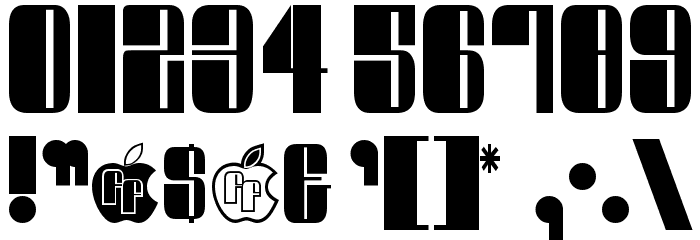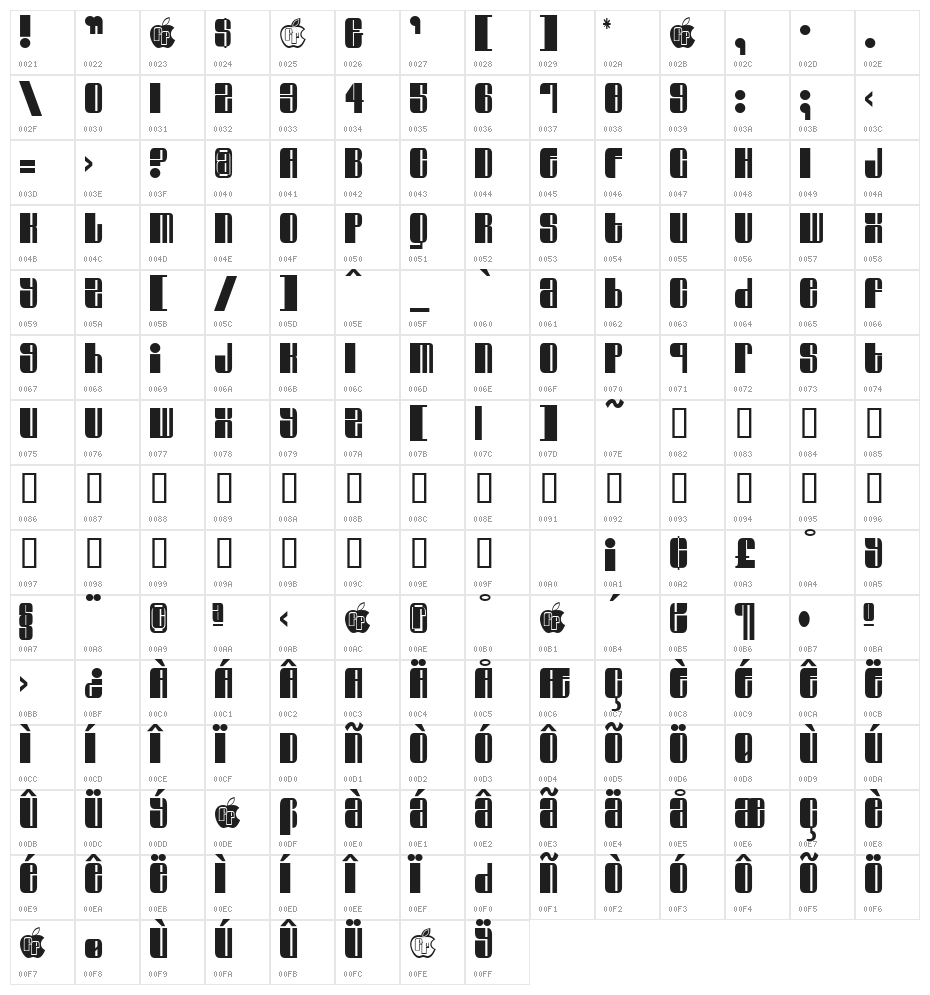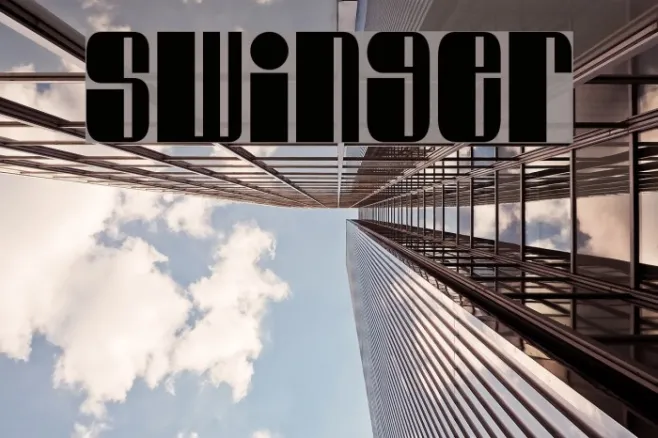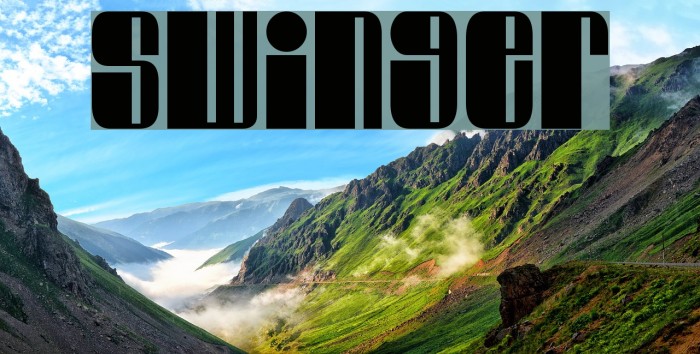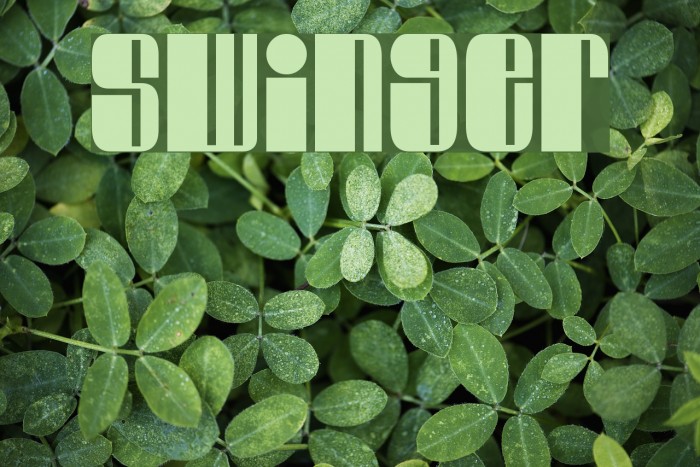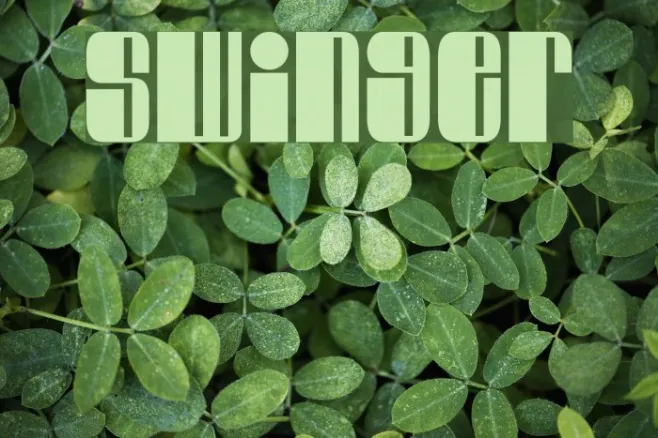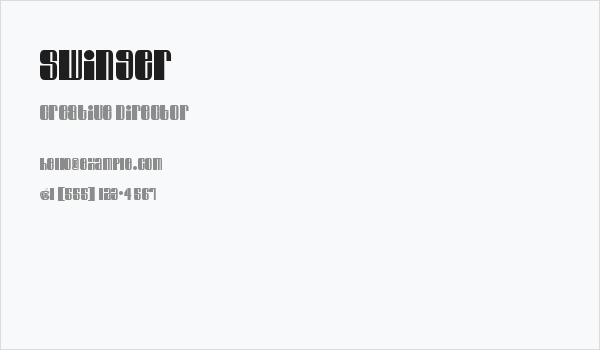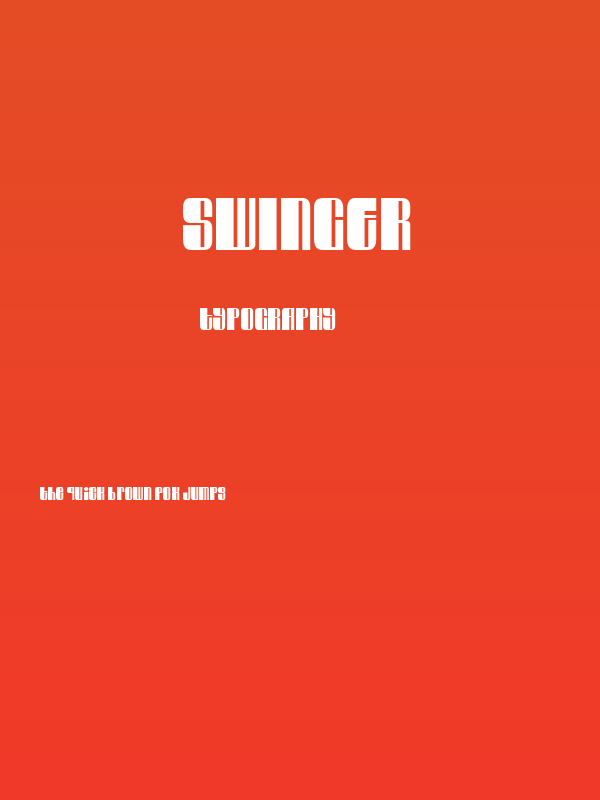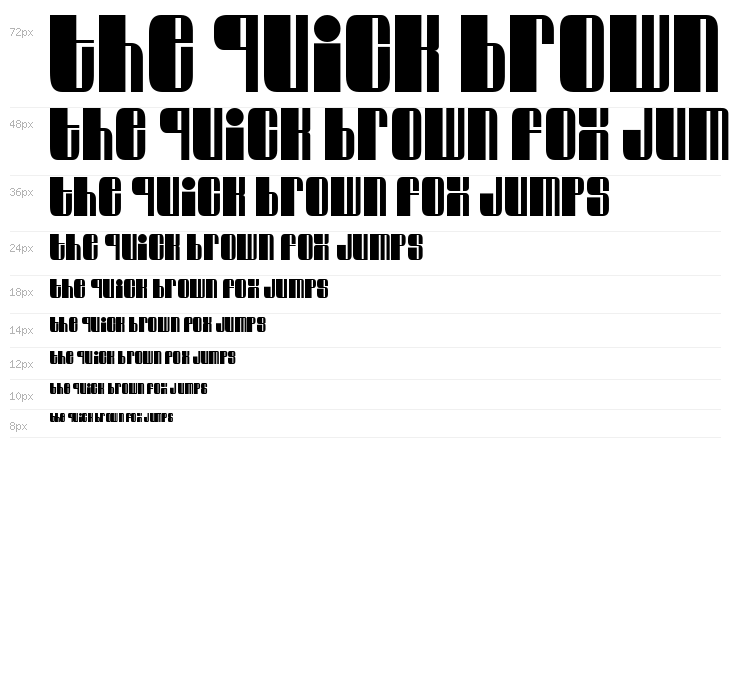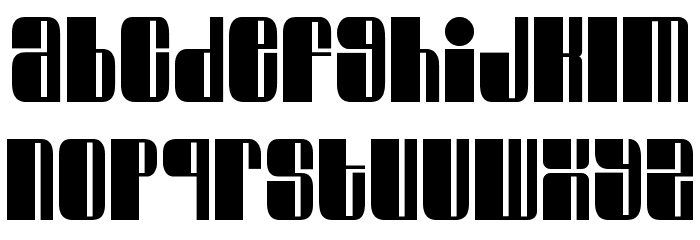
Swinger Font
Swinger Description
This font exhibits a bold and striking design, characterized by its thick, block-like letterforms that convey a sense of strength and modernity. The characters are uniformly wide, creating a cohesive and impactful visual presence. The uppercase and lowercase letters share a consistent style, with minimal differentiation in height, enhancing the font's bold aesthetic. The numbers and special characters maintain this robust design, ensuring uniformity across all glyphs. The font's unique style makes it ideal for attention-grabbing headlines and logos, where a strong visual impact is desired.